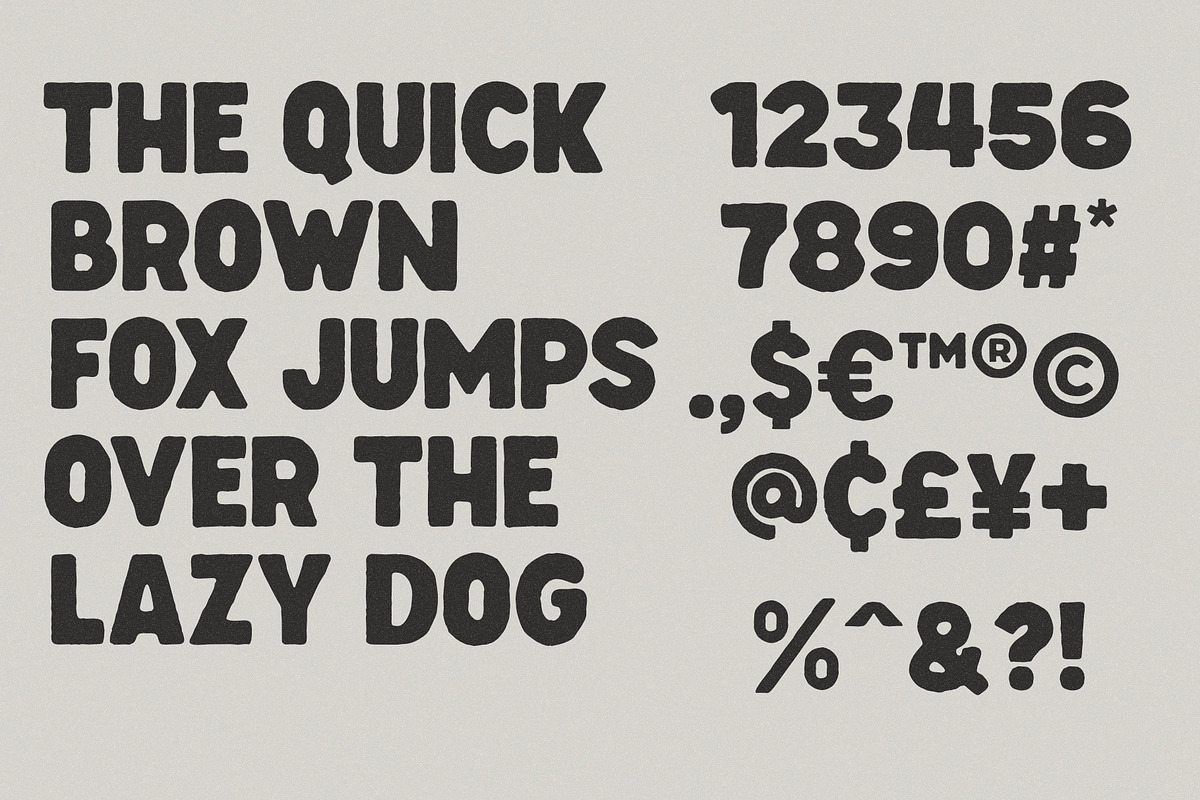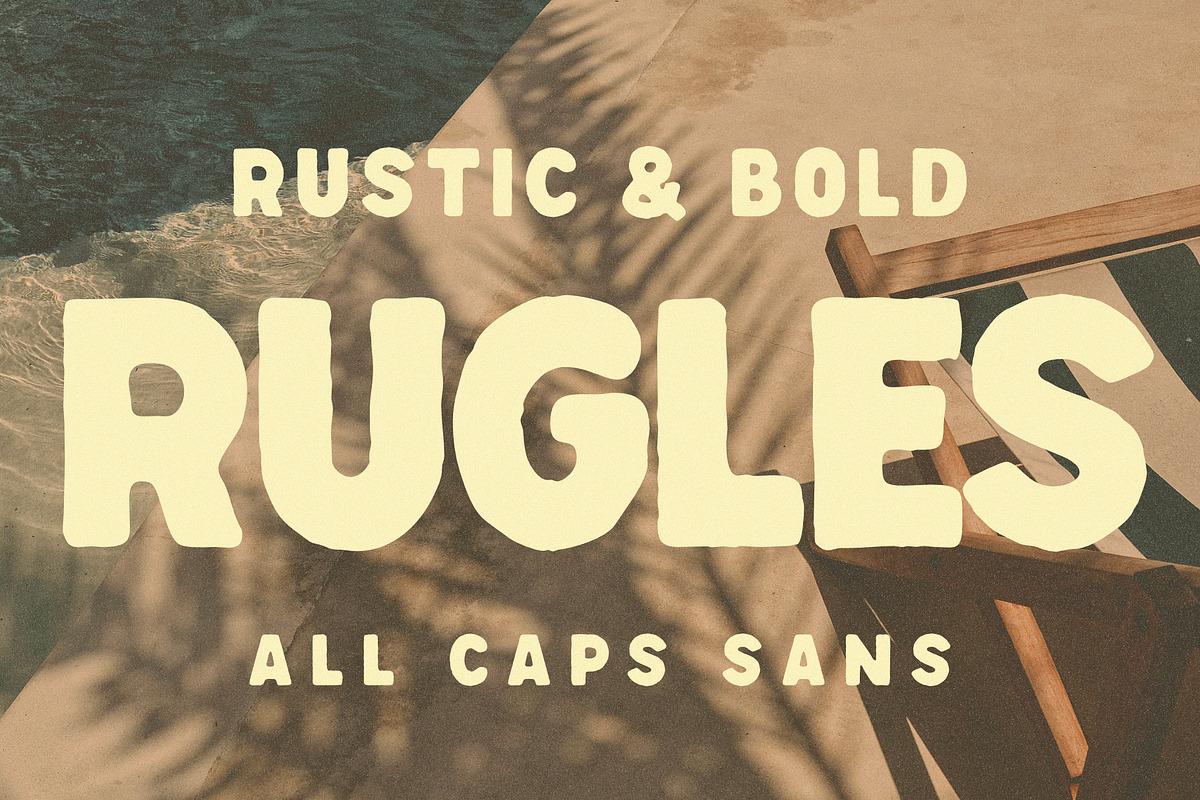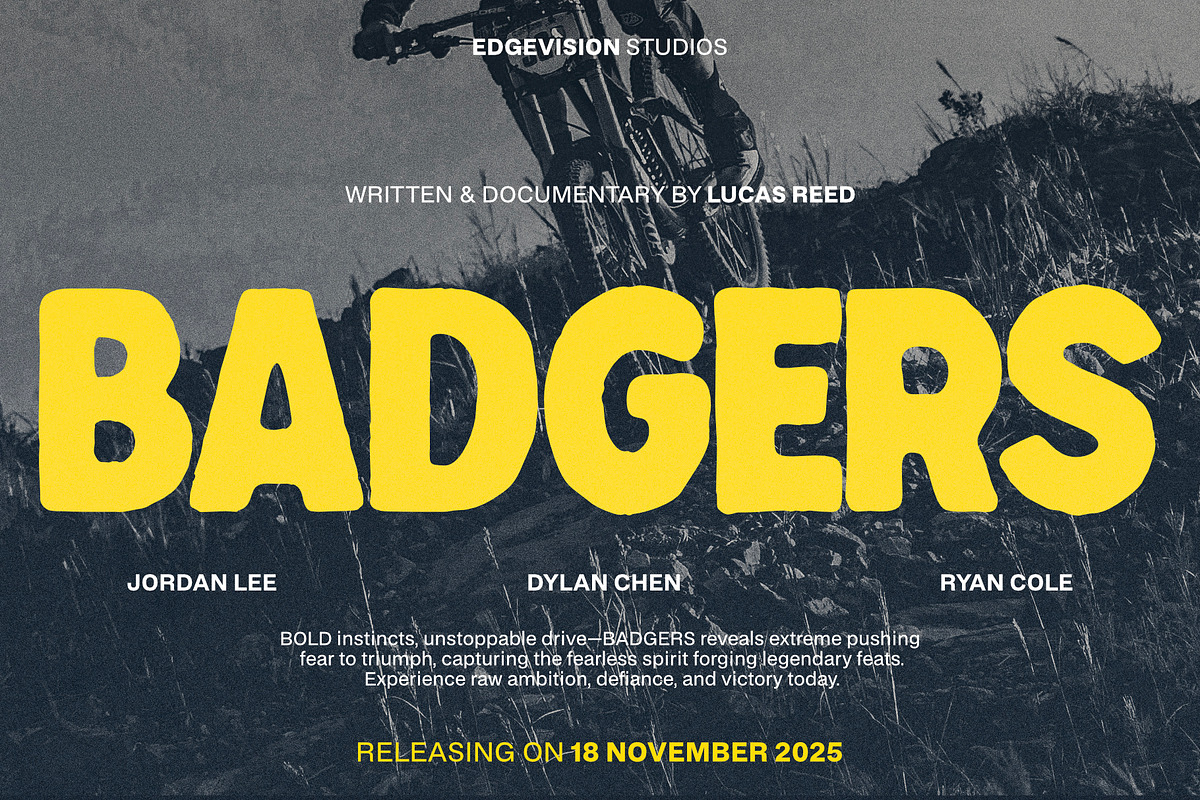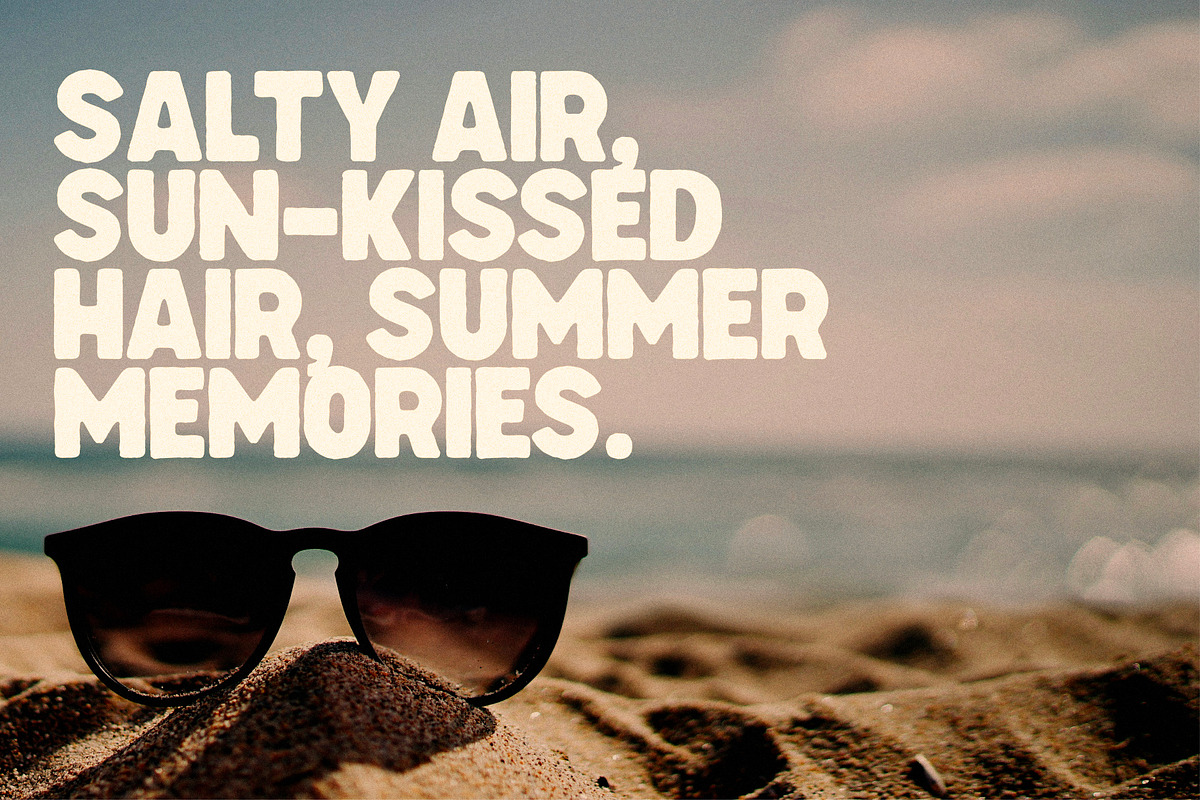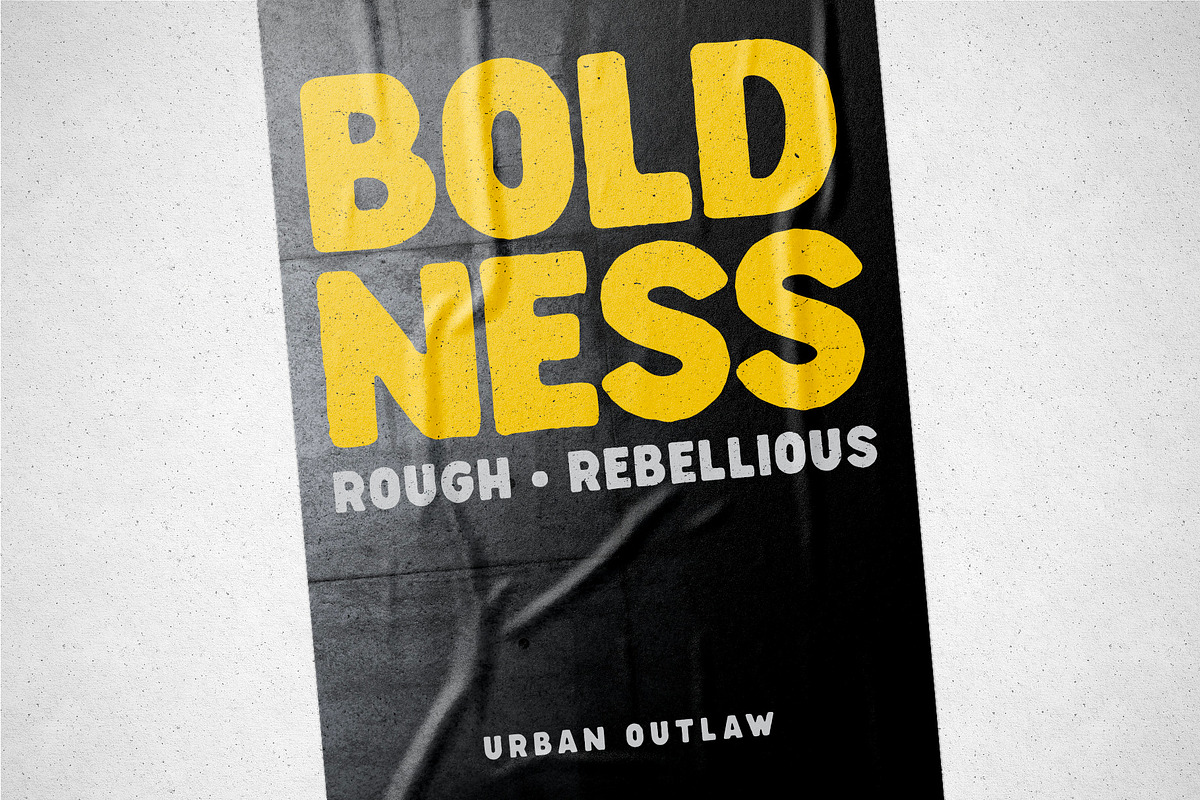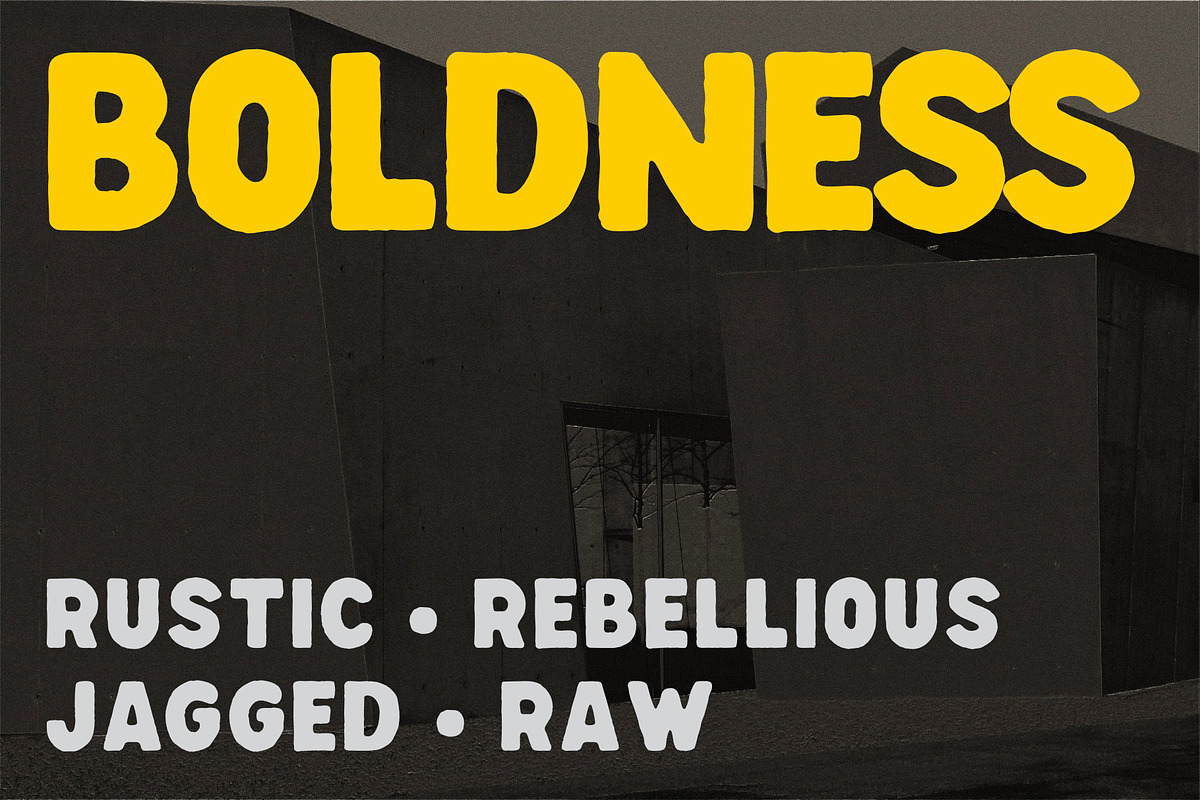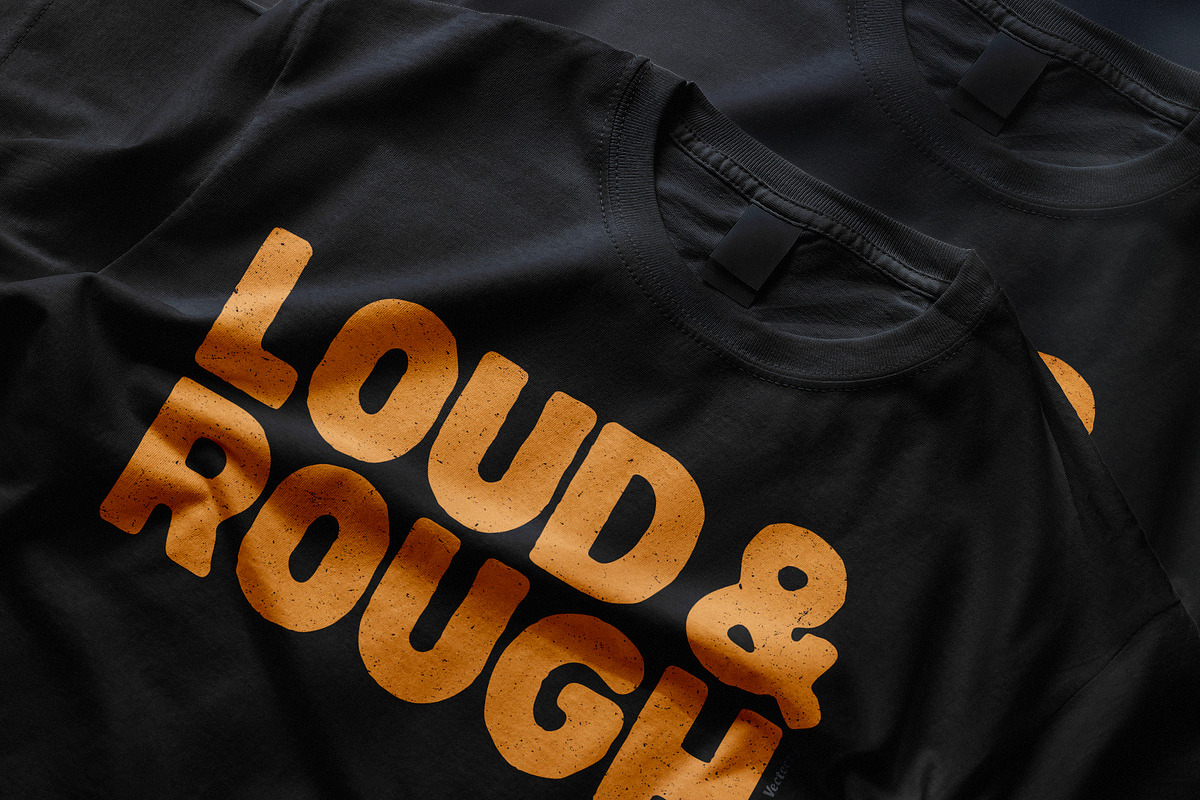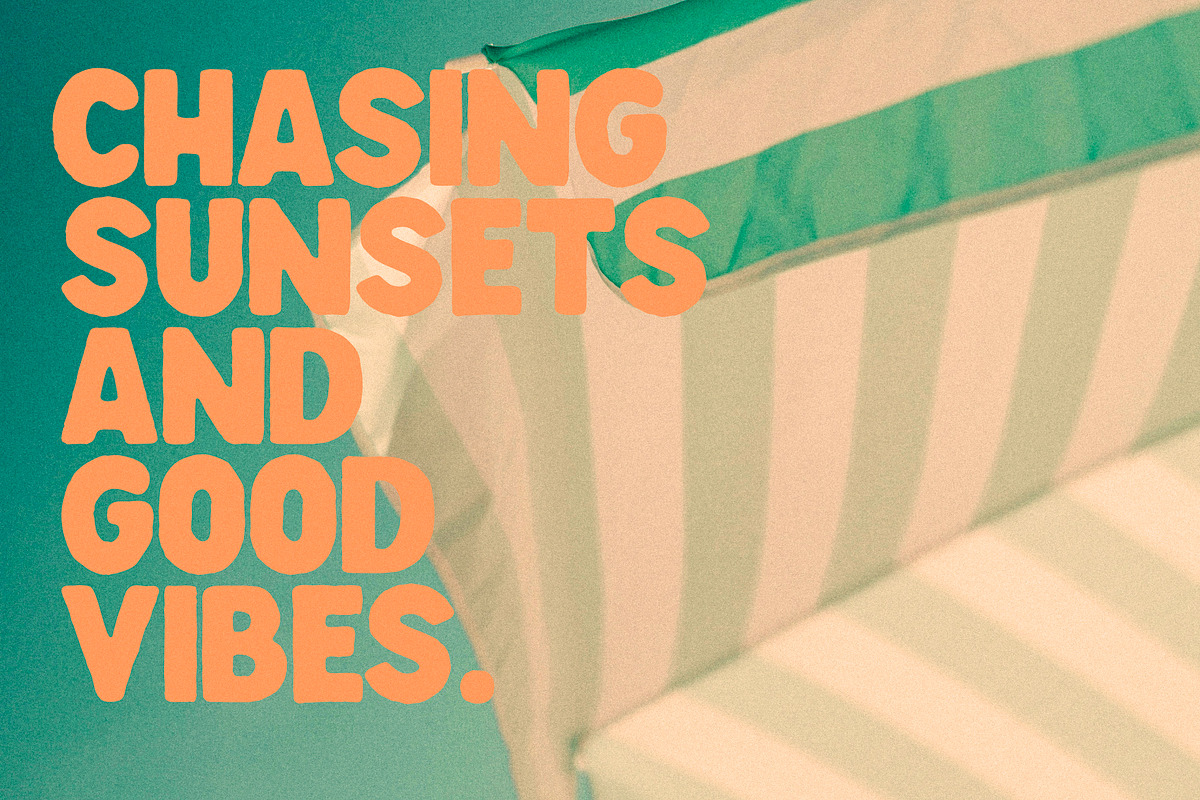
RUGLES — Rustic & Bold Sans
RUGLES: Summer's Edgy Escape
Craving a typeface that truly pops with sun-drenched flair?
RUGLES delivers rustic strokes fused with standout letterforms, setting a vibrant new standard for high-impact visuals that radiate summer energy across every market.
Dive into Its Features:
Bold & Beach-Ready Forms – Eye-catching shapes that demand attention, yet feel perfectly at home under the summer sun.
Crisp Legibility – Exceptionally clear readability, even in bustling, playful layouts, making it ideal for everything from poolside party invites to breezy blog headers.
Tropical Edge & Versatility – Your go-to for summer streetwear, festival posters, artisanal craft packaging, and all your sun-kissed branding needs.
High-Impact Summer Branding – Amplifies authenticity with a laid-back industrial vibe, perfect for brands that celebrate good times and warm weather.
Rebellious Aesthetic with a Tan – Modern and fearless, designed for brands ready to break the mold and soak up the summer spotlight.
Global Summer Reach – Supports 202 languages, ensuring your summer message travels far and wide.
Who's Catching the RUGLES Wave? Designed for creative professionals and brands seeking a bold, unmissable identity—from surf-inspired labels to summer festival promotions, travel documentaries, and beyond. RUGLES truly shines in high-energy niches that call for an urban, edgy vibe with a definite touch of endless summer.
Why RUGLES is Your Summer Essential: By merging an industrial grit with a rebellious, free-spirited summer vibe, RUGLES sparks excitement in audiences looking for designs that are both fearless and fun. It taps into the desire to stand out, inspiring confidence and daring creativity, just like the quiet joy of a perfect summer day.